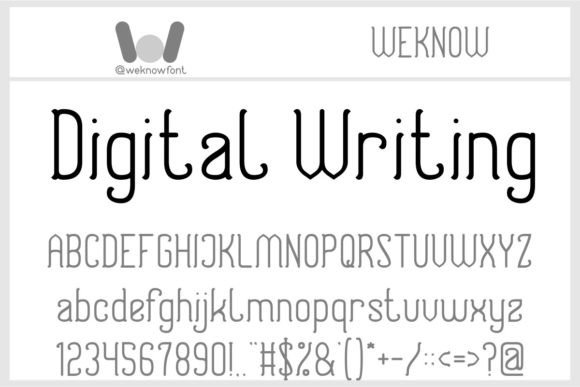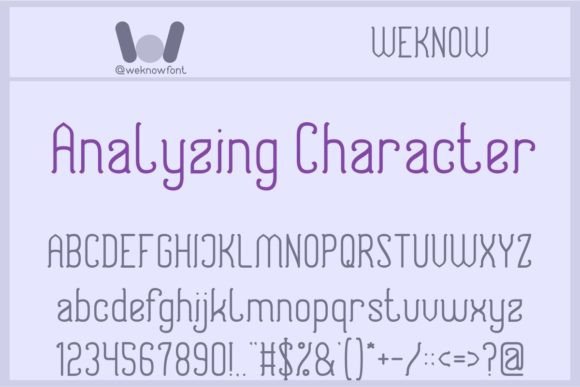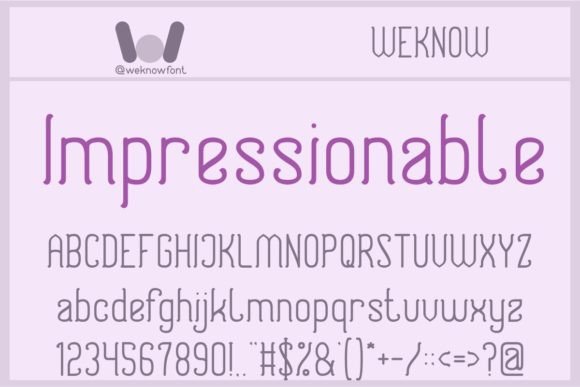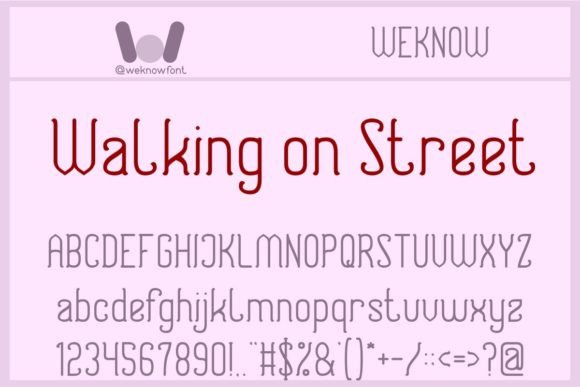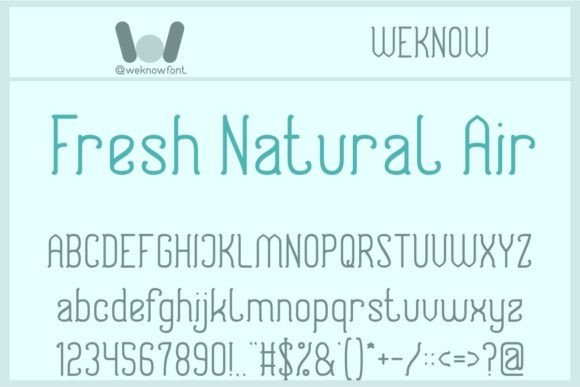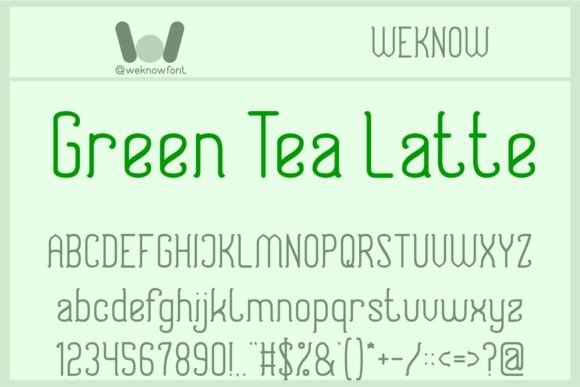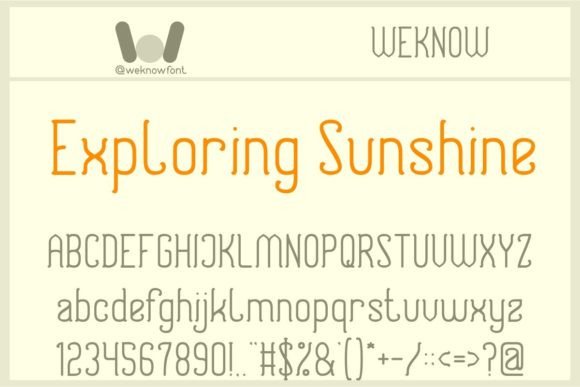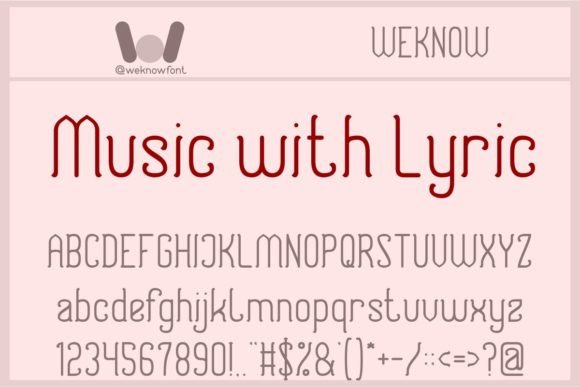
Digital Writing
About Digital Writing
Digital Writing is a slab serif font suitable for a logo, logotype, headline, corporate identity, brand identity, apparel industry, poster, music, movie, game, magazine, book, comic, cartoon, YouTube, Instagram, website, or any of your creative design projects.